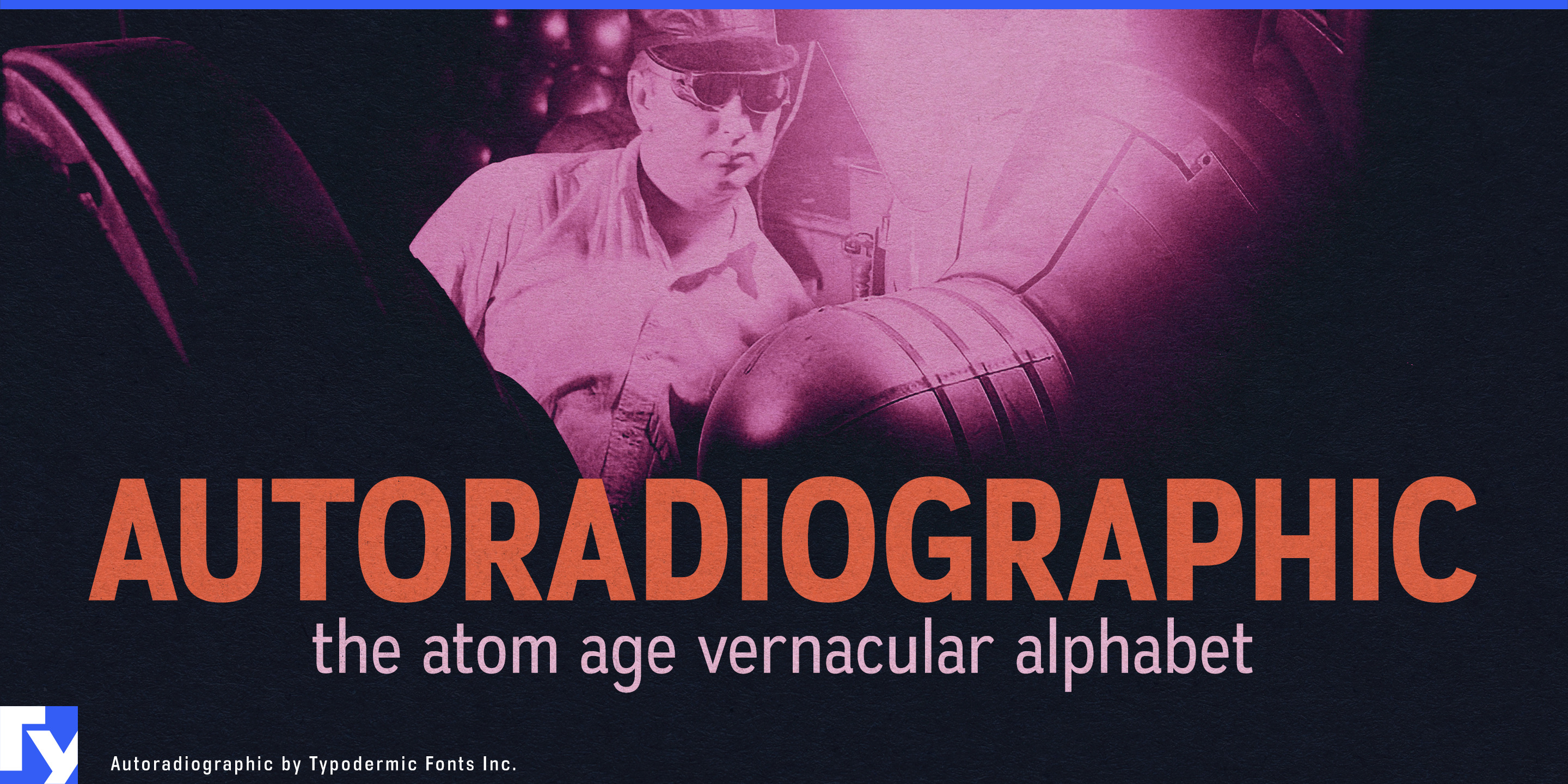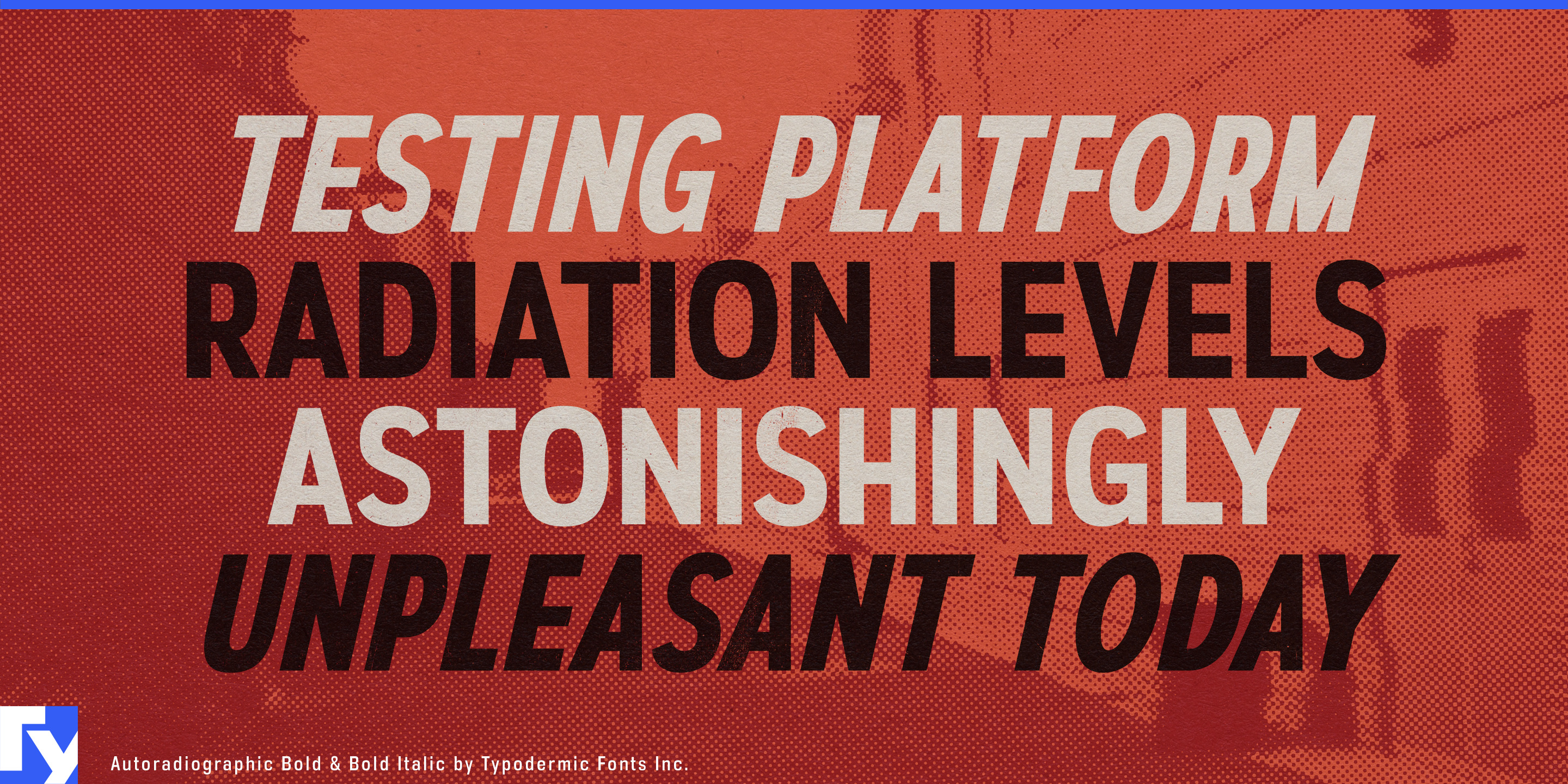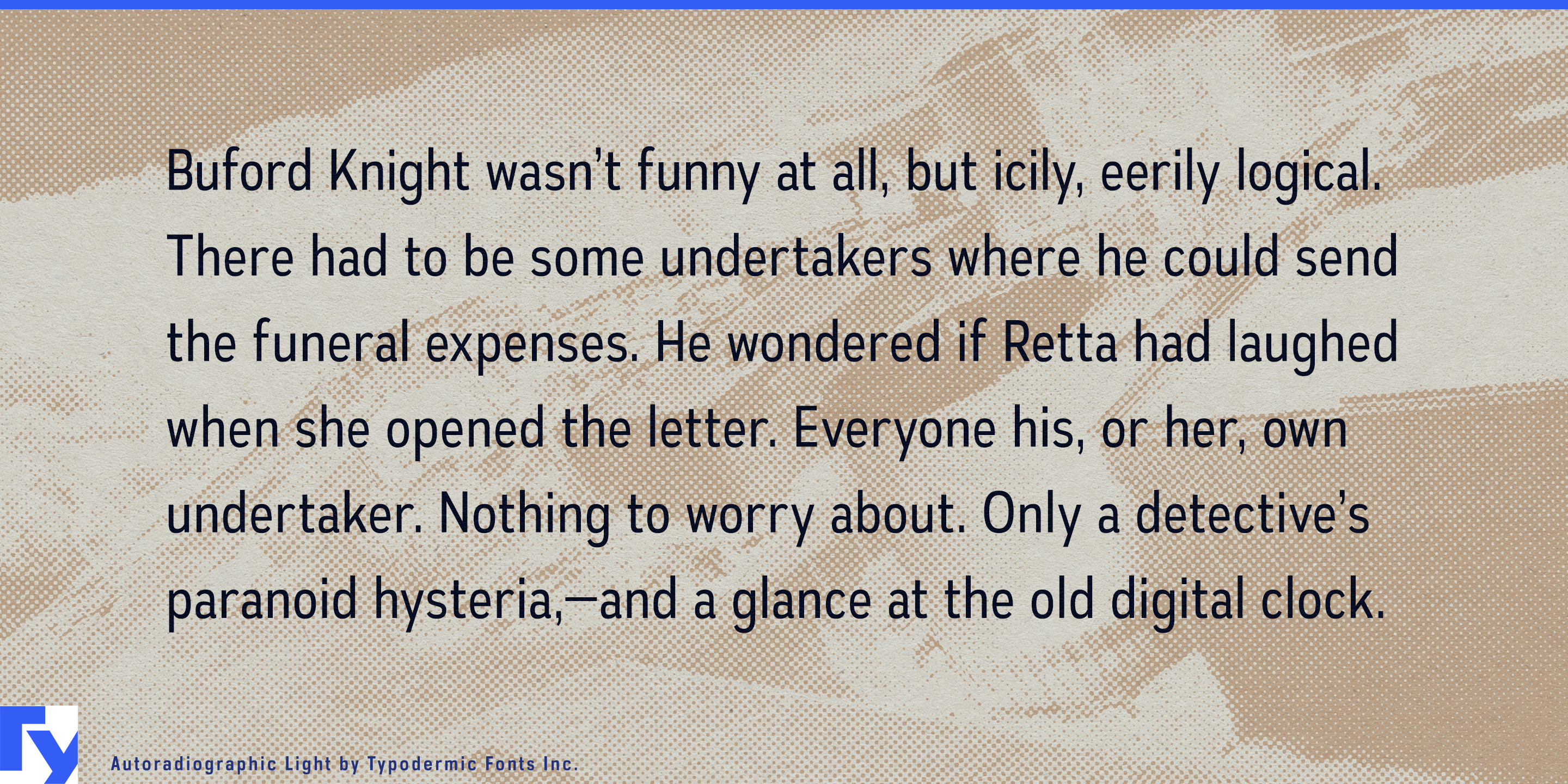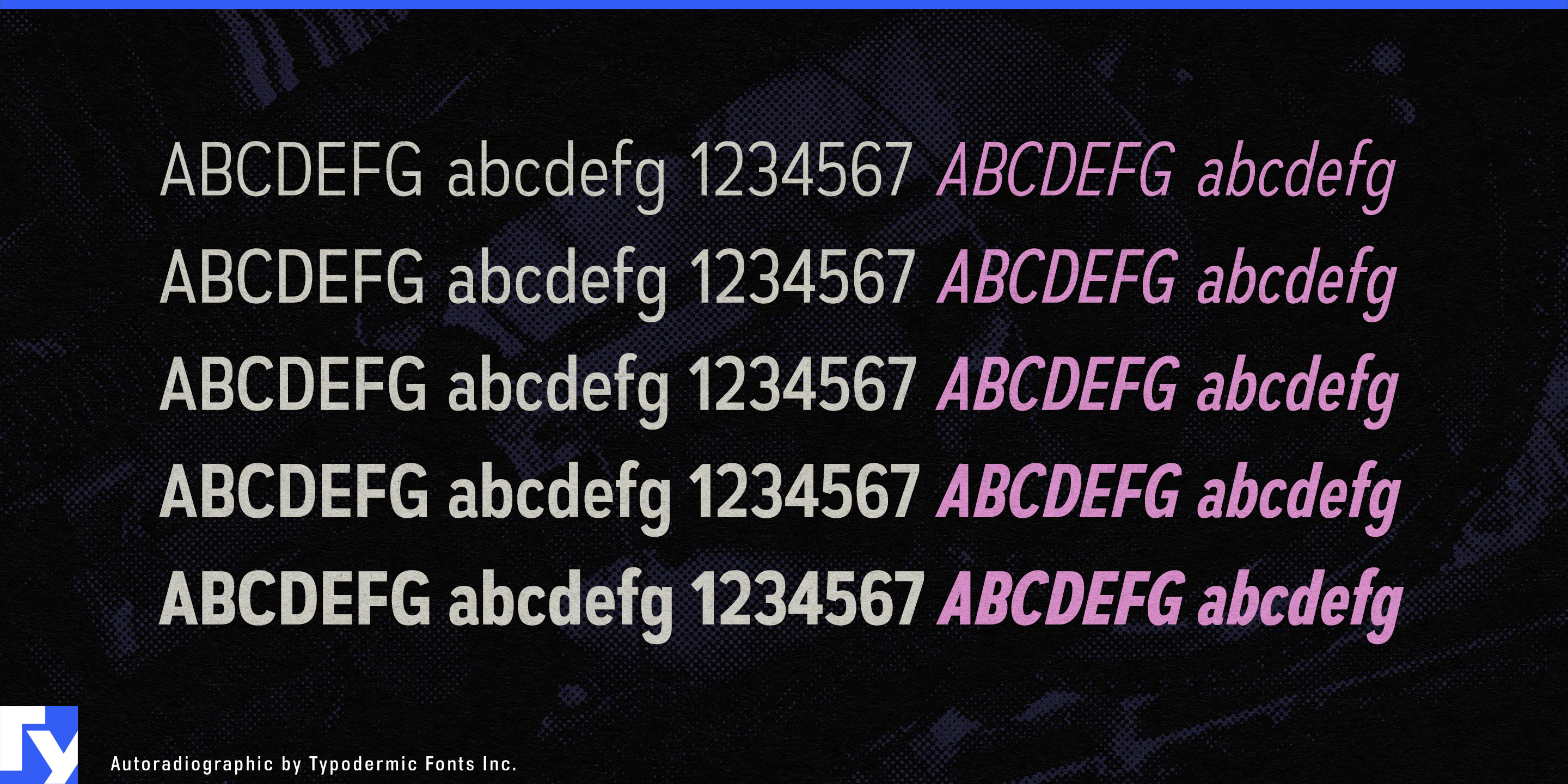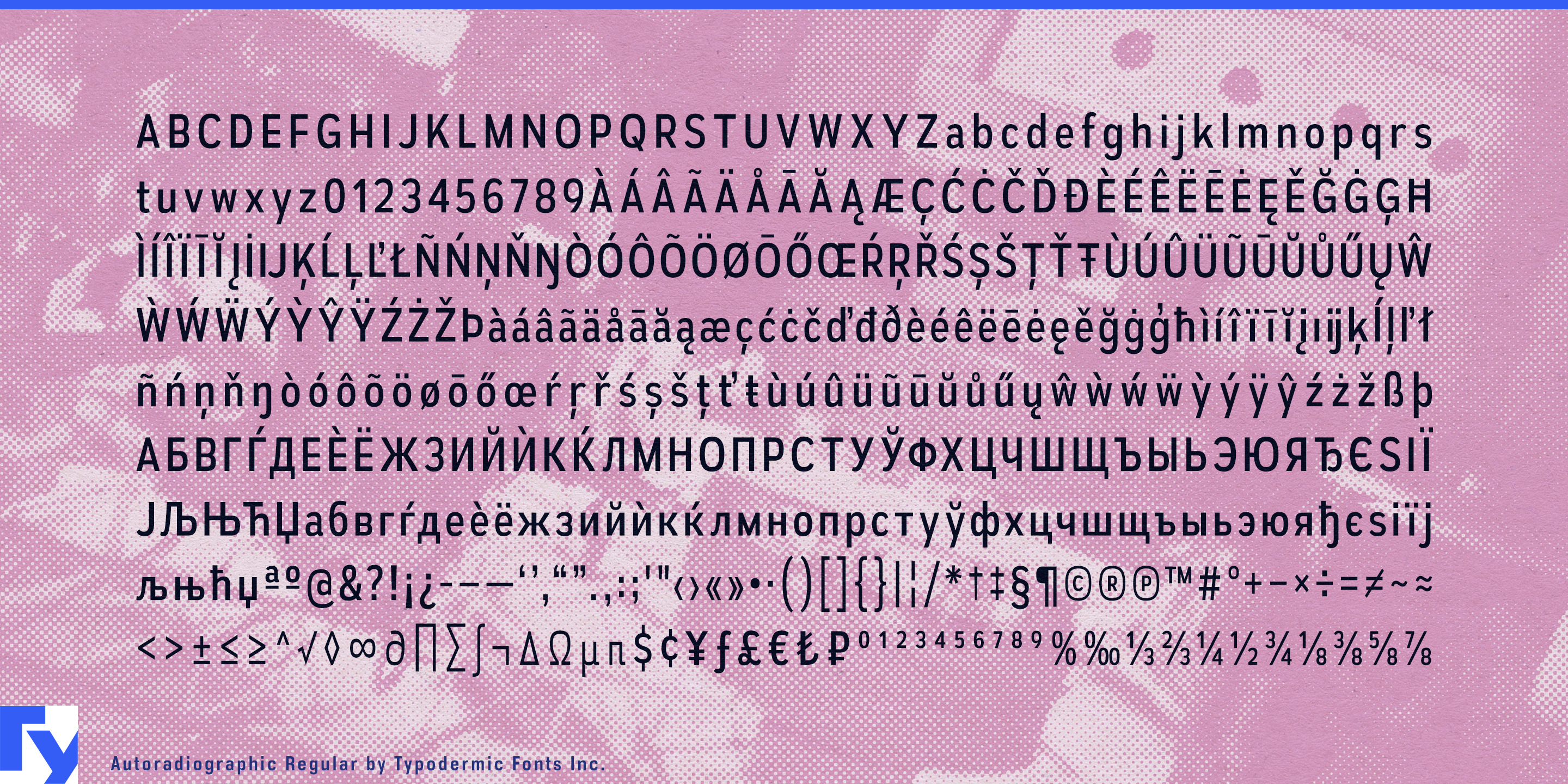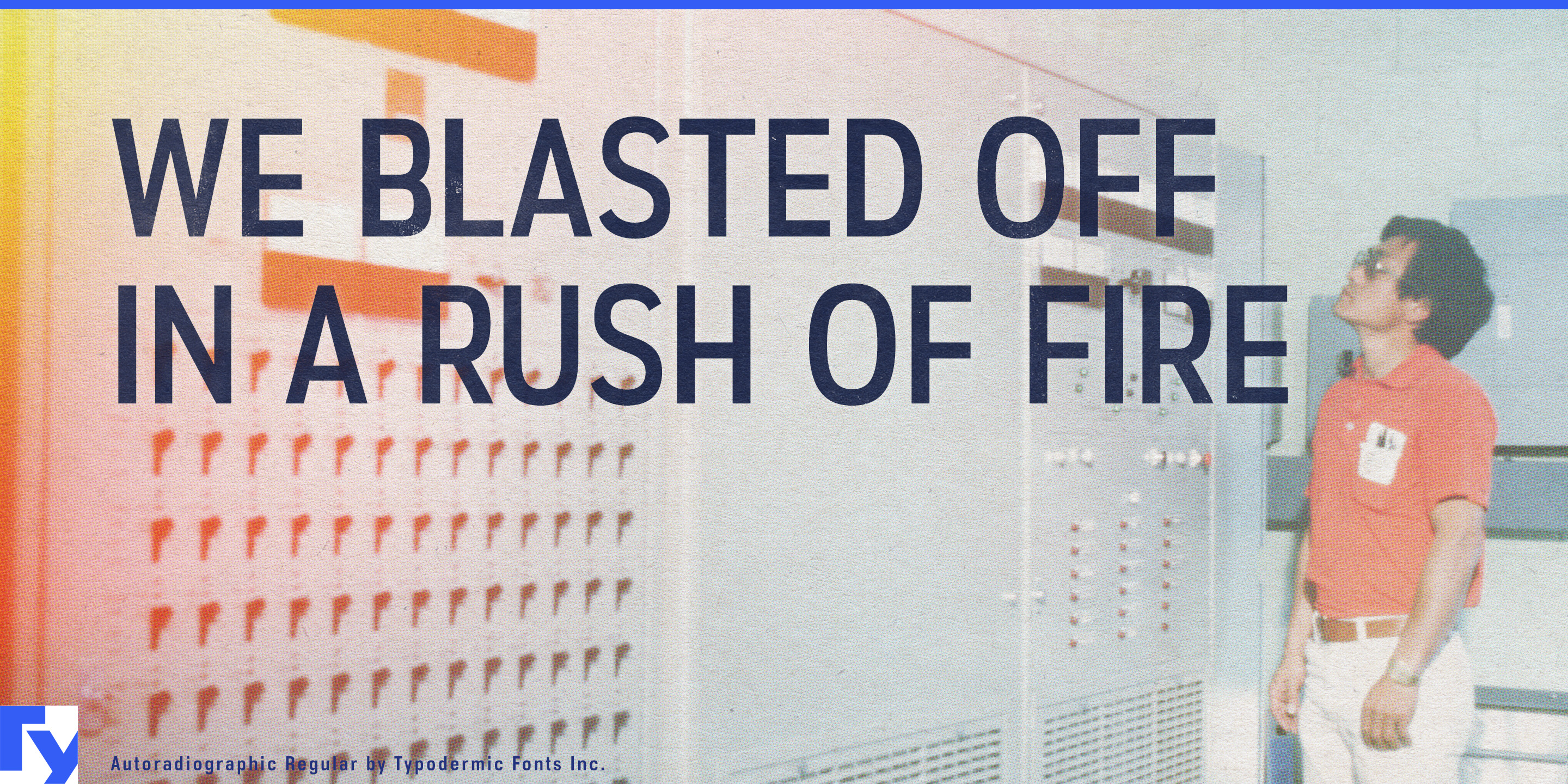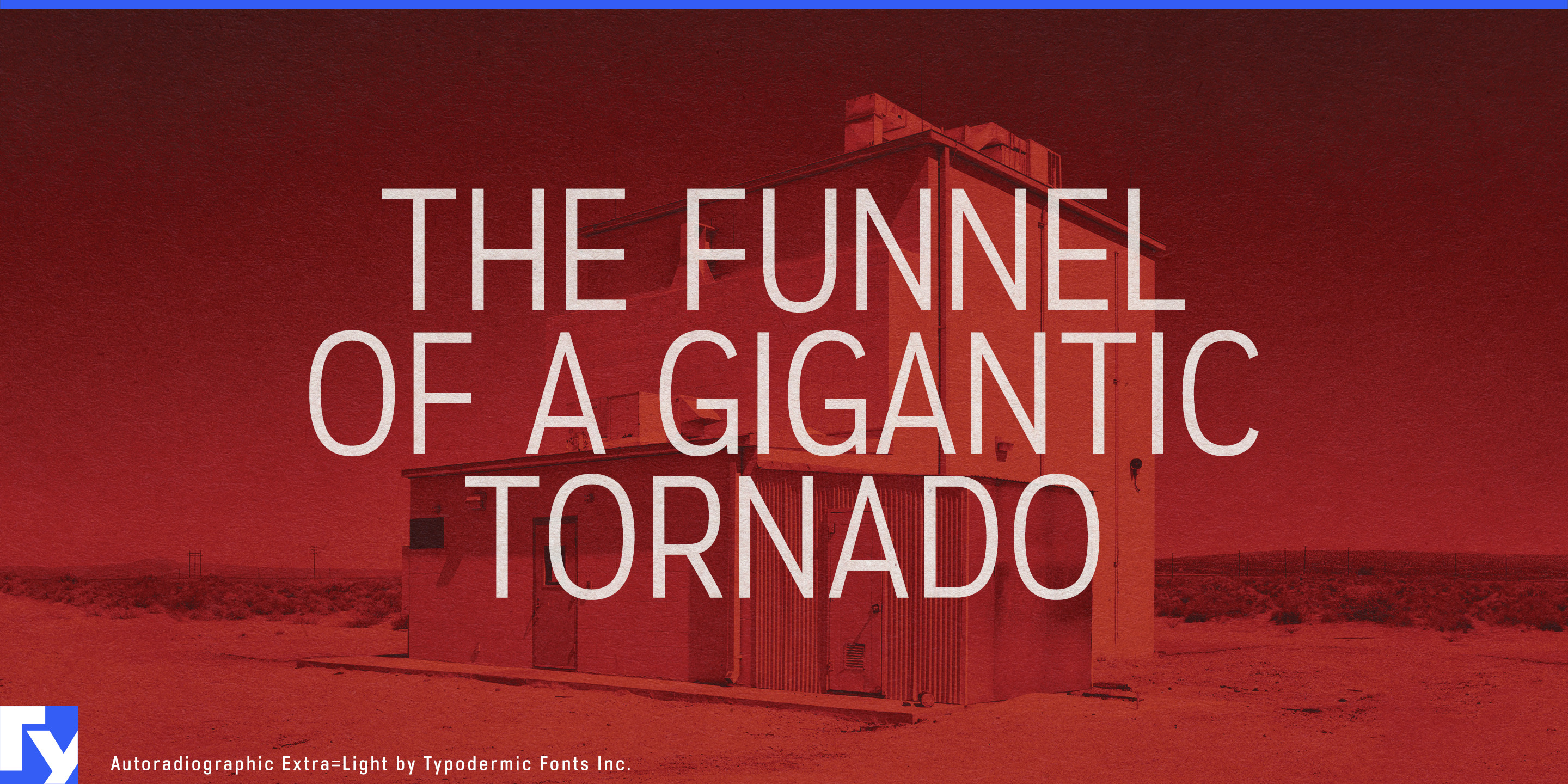
Autoradiographic
Autoradiographic is a love letter to the lettering of postwar America—the blunt, condensed sans serifs you’d find stenciled on test equipment, screen-printed onto safety signage, or shouting from a Cold War lab door. It’s rooted in mid-century utility, but designed for modern designers who want their work to hum with that unmistakable atomic-age voltage.
Every weight in the family has the same no-nonsense backbone: clean caps, squared ends, and just-soft-enough curves to keep it human. The italics are where the personality jumps out. Narrow and loosely spaced, they add emphasis with a confident, sign-painter swagger—not by borrowing tricks from classical italics, but by doubling down on their industrial DNA. Five weights plus italics cover everything from clipped, authoritative labels to full-tilt, headline drama. The numerals and symbols echo the robust clarity of vintage data plates, making them as effective in a modern editorial layout as they are in a retro poster.
Whether you’re building a tongue-in-cheek sci-fi paperback cover, a hard-edged branding system, or a perfectly period-authentic prop, Autoradiographic delivers a distinctive mid-century American voice—one that’s as at home on a lab wall in 1958 as it is on your screen today.